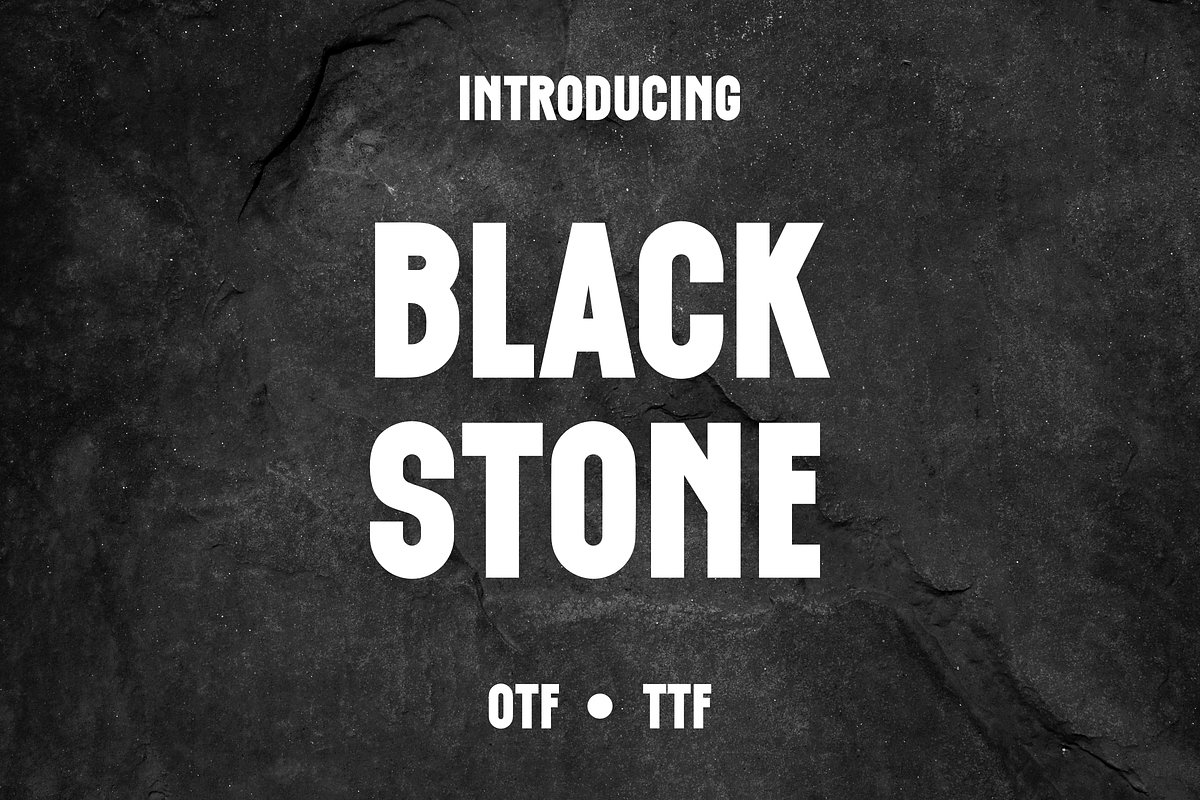
The Black Stone Sans Serif Font Free Download is a bold, modern typeface designed to make a strong statement in your designs. With its clean, geometric shapes and strong, sturdy structure, this font is perfect for creating impactful logos, headlines, posters, branding, and digital content. Whether you're working on a corporate project, a contemporary brand, or any creative design that needs a powerful and polished look, Black Stone adds strength and clarity to your work.
Black Stone Sans Serif Font Free Download is ideal for designers looking for a versatile, high-impact sans serif font. Perfect for modern branding, web design, or promotional materials, this font will help your designs stand out with its sleek, professional style. Download it today and add bold, contemporary typography to your creative projects!